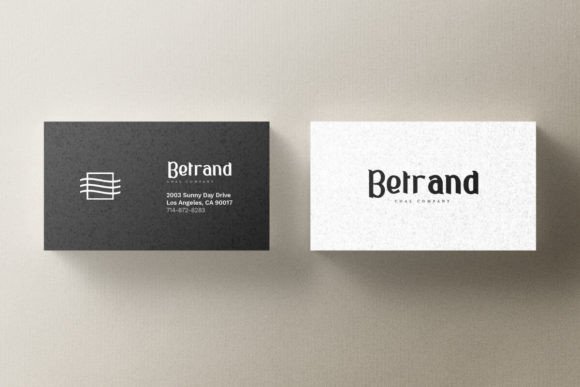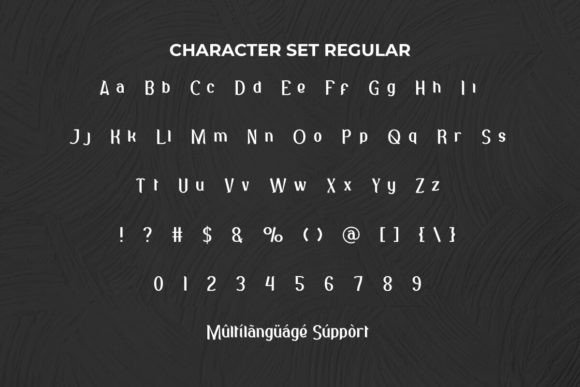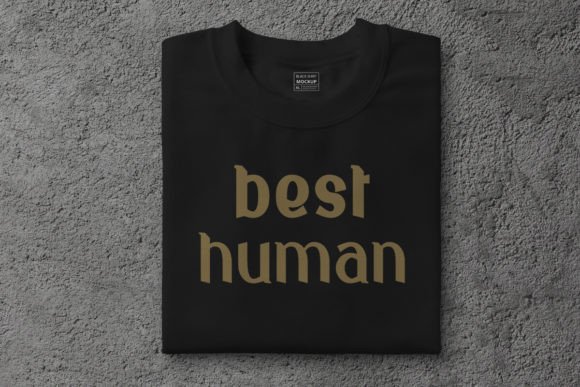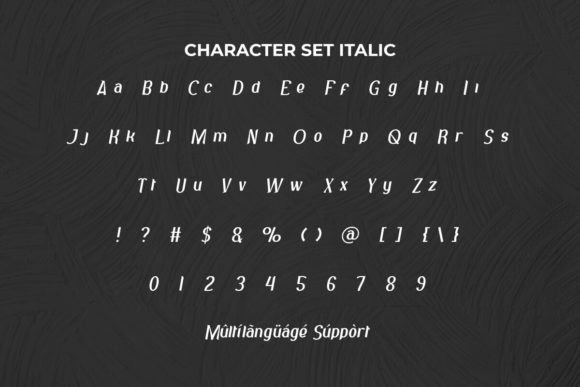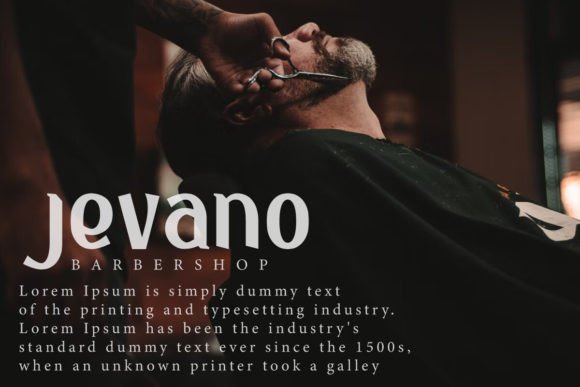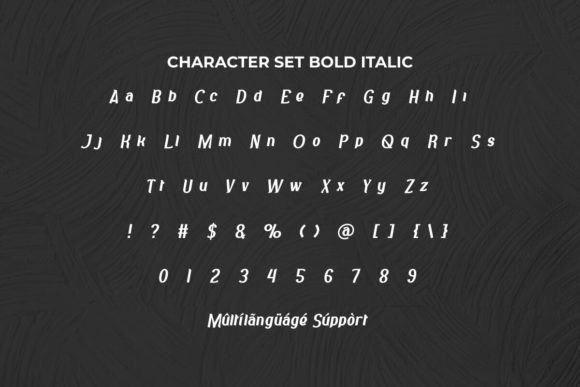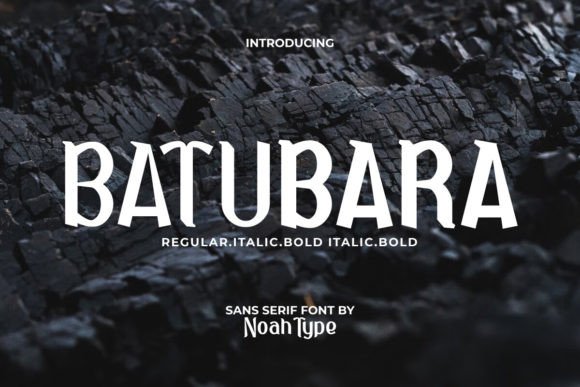
Batubara Font: Elevate Your Designs with a Modern Sans Display Font
In the world of design, typography plays a crucial role in conveying messages, expressing creativity, and capturing the audience’s attention. For designers and crafters seeking a font that embodies modernity, versatility, and style, Batubara Font is an excellent choice. This game and techno-related sans display font is designed to take your designs to the next level, offering four distinct styles: Regular, Italic, Bold, and Bold Italic.
What is Batubara Font?
Batubara Font is a carefully crafted sans display font that resonates with the vibrant and dynamic essence of the gaming and techno industries. Its sleek lines, precise curves, and contemporary feel make it an ideal selection for projects requiring a modern aesthetic. Whether you’re working on a logo, a poster, a website, or any other design project, Batubara Font provides the perfect blend of style and readability.
Key Features of Batubara Font
- Four Distinct Styles: Batubara Font comes in four variations – Regular, Italic, Bold, and Bold Italic. This range of styles allows designers to experiment with different looks and tones, ensuring their designs stand out and convey the desired message effectively.
- Versatility: The font’s versatility is one of its most compelling features. It can be used across various industries, including but not limited to accessories, advertisement, barbershop, café, fashion, furniture, handicrafts, printing, publishing, restaurant, and more. This adaptability makes Batubara Font a valuable asset in any designer’s toolkit.
- Modern Aesthetic: Batubara Font boasts a modern sans-serif design that aligns well with current design trends. Its clean and crisp appearance ensures that your designs look contemporary and appealing to the eye.
- Readability: Despite its stylized appearance, Batubara Font maintains high readability, making it suitable for both headlines and body text. This ensures that your message is conveyed clearly, regardless of the font style or size used.
Applications of Batubara Font
The applications of Batubara Font are vast and varied. Here are some of the key areas where this font can make a significant impact:
- Digital Media: For websites, mobile apps, and social media graphics, Batubara Font offers a professional and modern look that can engage audiences effectively.
- Print Media: Whether it’s for posters, flyers, brochures, or business cards, this font provides a stylish and legible solution.
- Branding and Logo Design: The unique styles of Batubara Font can help in creating memorable and impactful brand identities.
- Advertising: For ad campaigns, the font’s modern appeal can help grab attention and convey messages with clarity and style.
Why Choose Batubara Font?
Choosing Batubara Font for your design projects comes with several benefits:
- Uniqueness: The font’s distinctive styles ensure your designs have a unique edge.
- Flexibility: With four styles to choose from, you can adapt your typography to suit different design requirements.
- Modern Appeal: The font’s contemporary look keeps your designs current and appealing.
- Easy to Read: Despite its modernity, the font maintains excellent readability.
Batubara Font is a versatile, modern sans display font that offers designers and crafters an exciting tool for creating visually appealing and effective designs. Its four distinct styles, combined with its broad range of applications, make it a valuable resource for anyone looking to elevate their design work. Whether you’re involved in graphic design, web development, or crafting, Batubara Font provides the perfect blend of style, readability, and versatility to bring your creative visions to life.